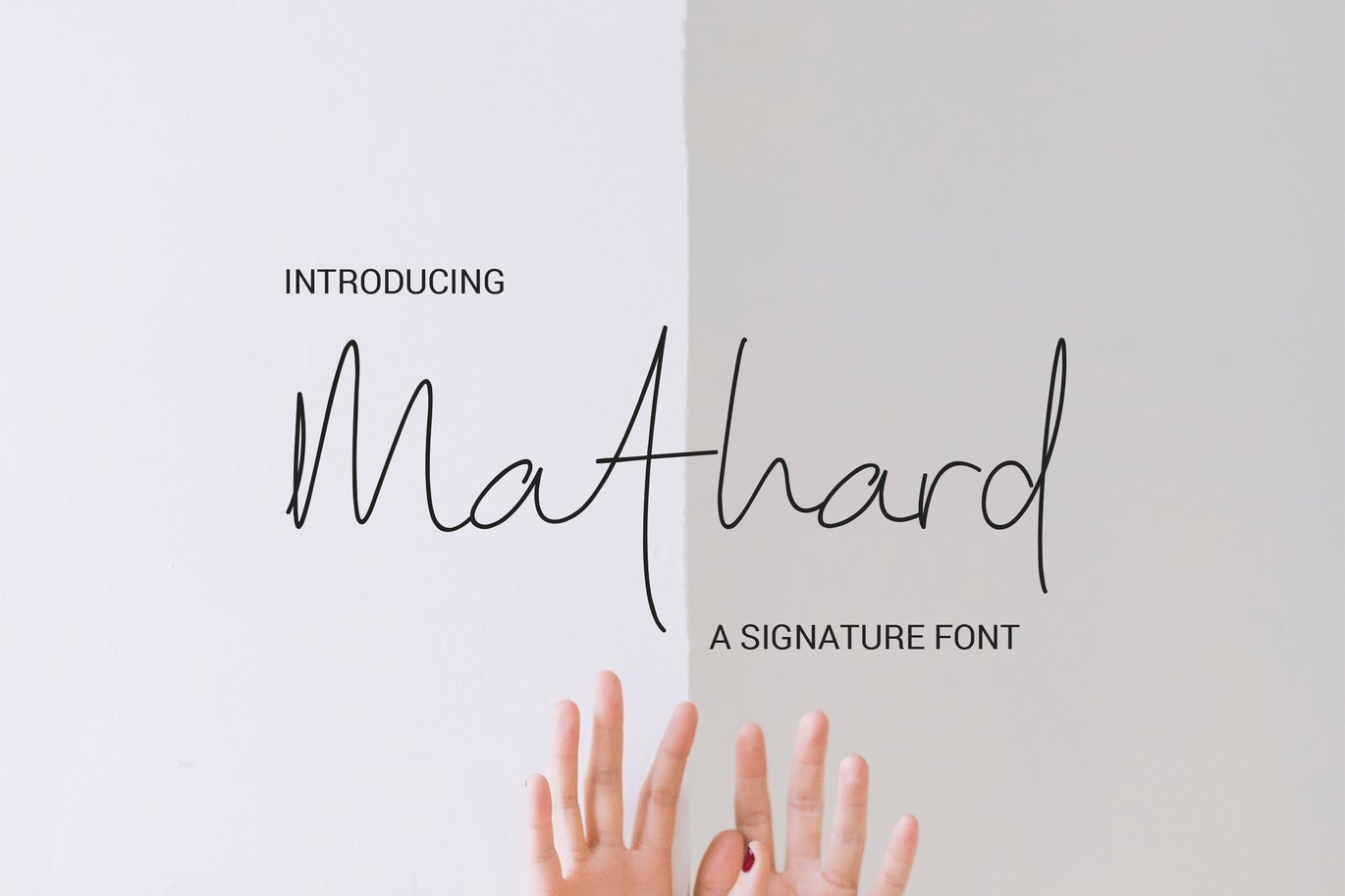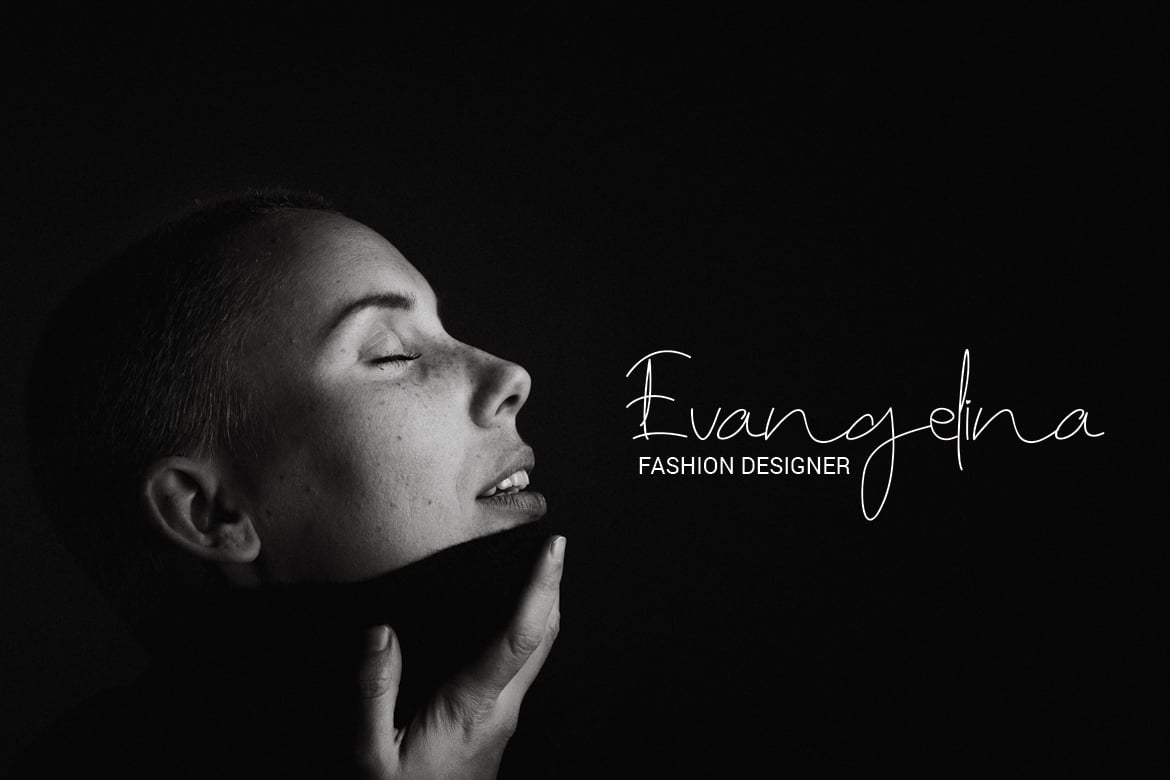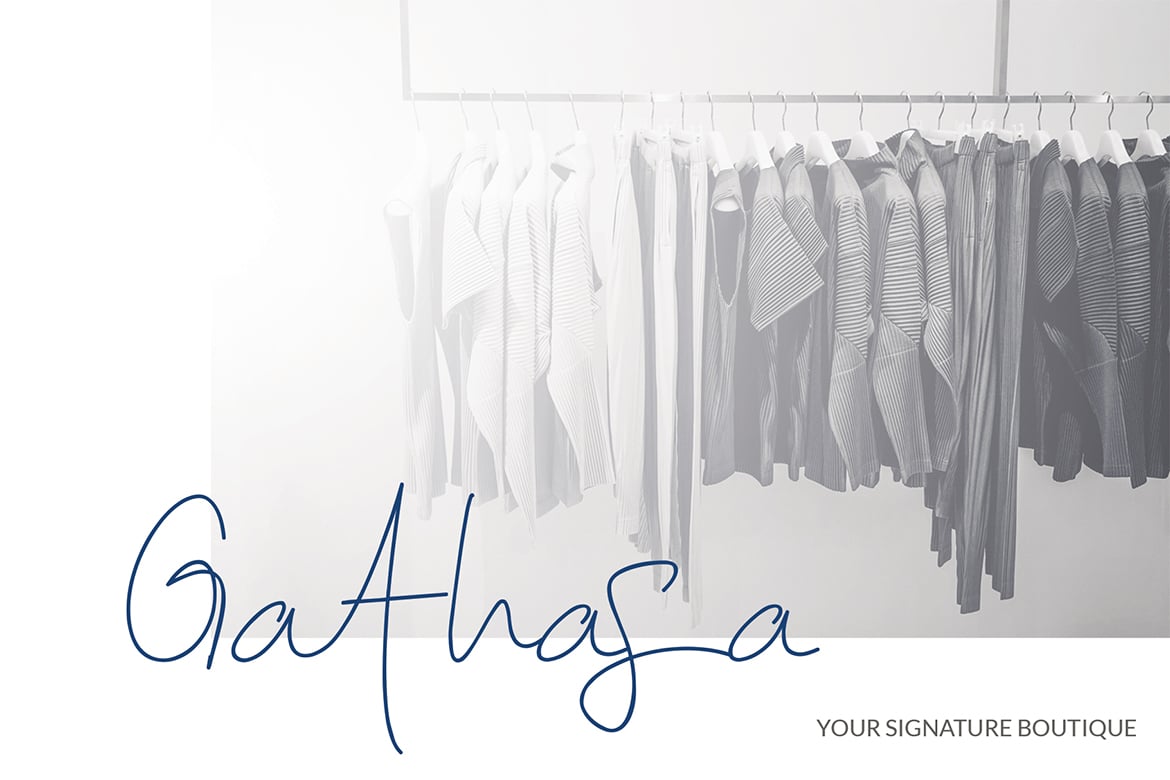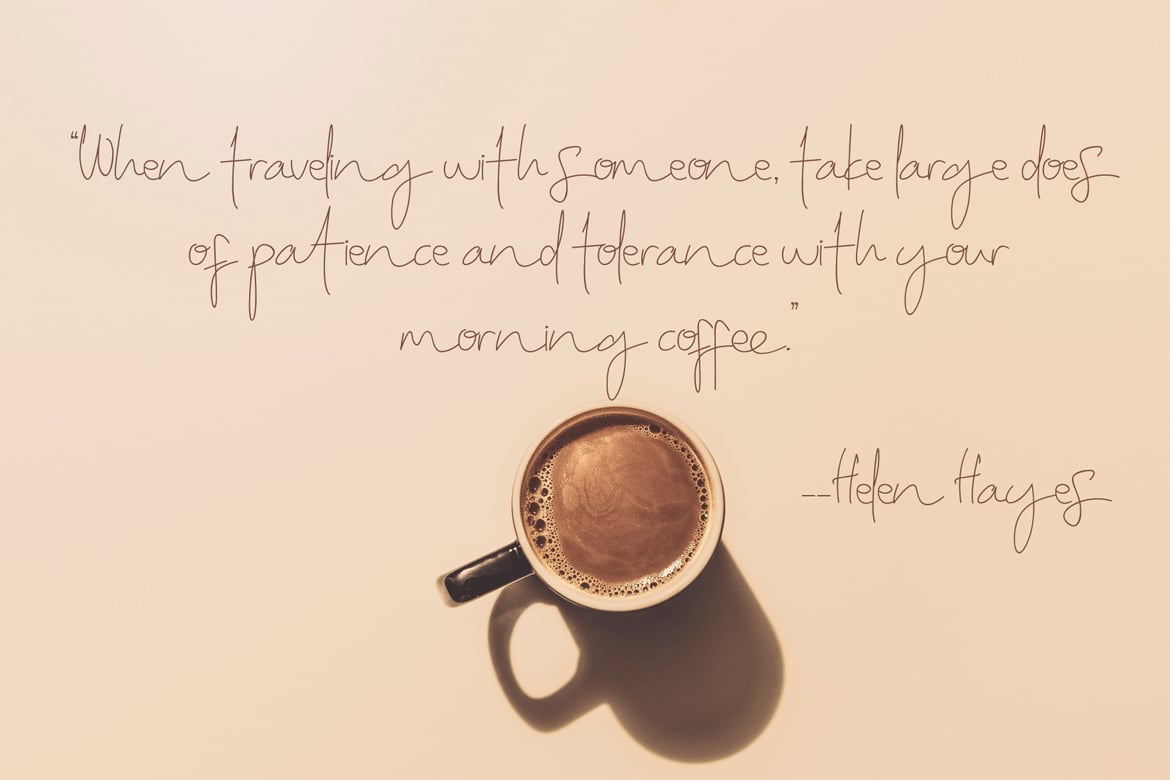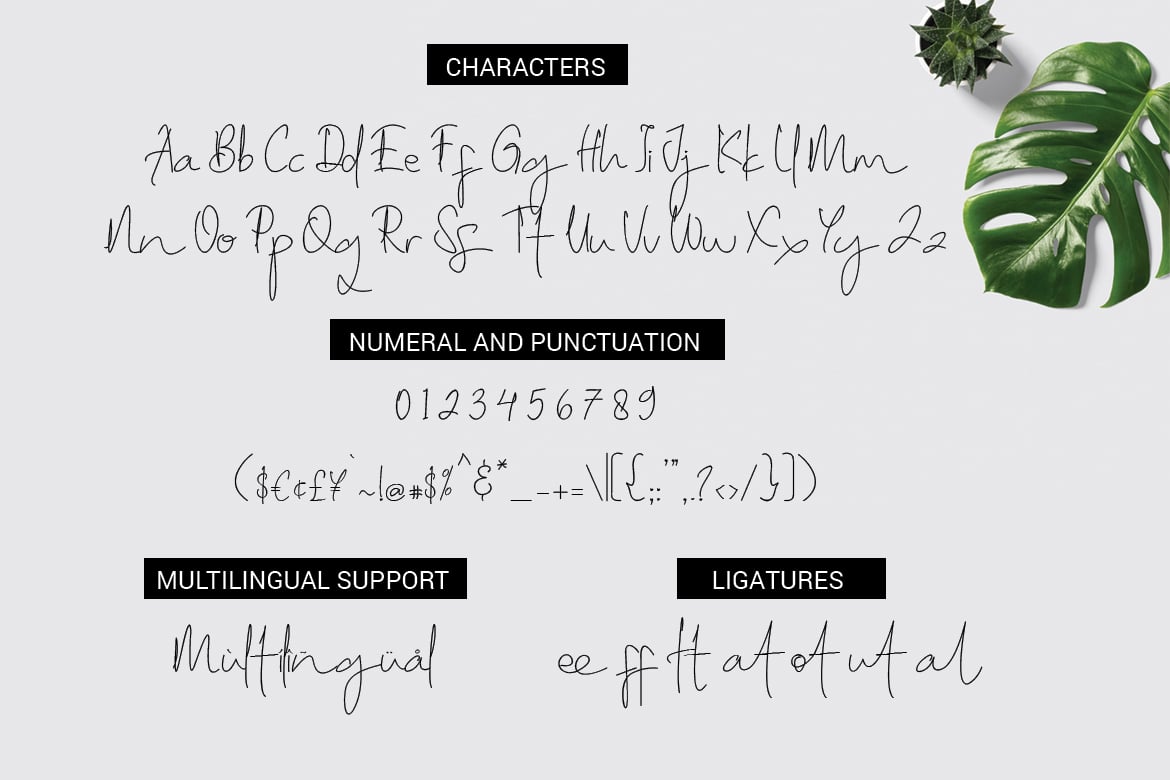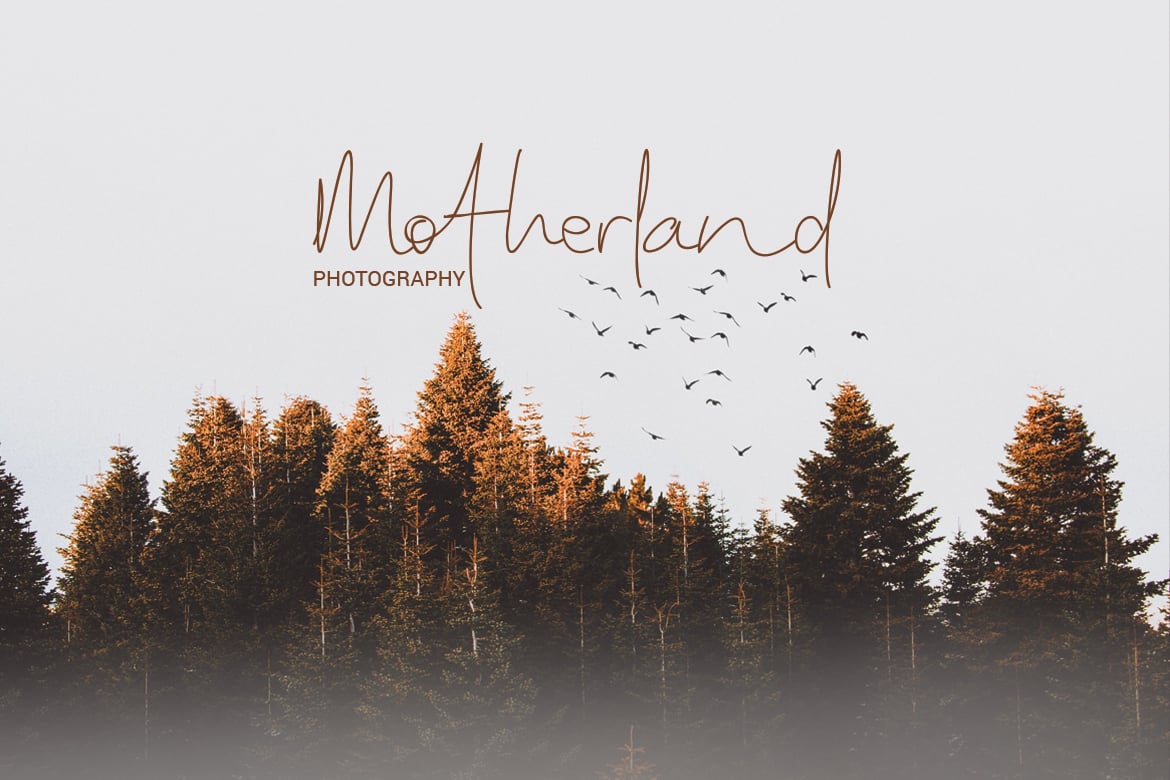
Mathard Signature Font
Mathard
MATHARD is a signature font made by original handwriting.
This font is perfect for making your set of invitations, Brand, blog posts, greeting cards, labels, photography, quotes, posters, wall art, etc.